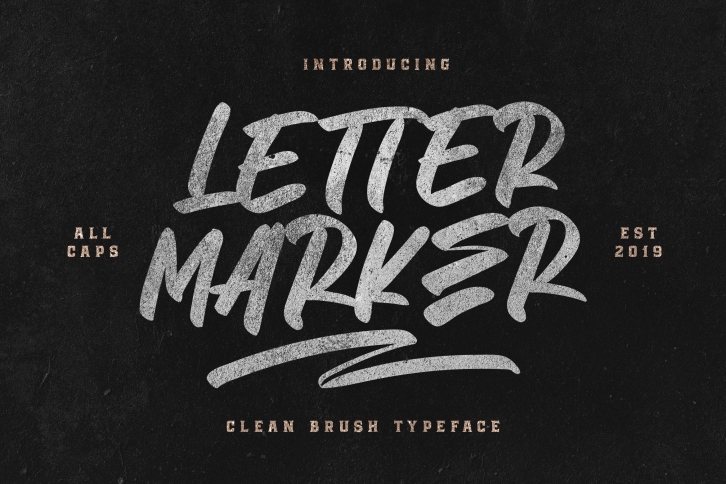
Letter Marker is a great font that was designed by Blankids. Imagine the amount of combinations you can create using this font! The archive is 5.95 MB and it was released on May 7, 2019. Letter Marker looks beautiful on wedding invitations, greeting cards, logos, posters, labels, t-shirt designs, logos, business cards and is perfect for use in ink or watercolor works, fashion, magazines, packaging and food menus, children's books and more!